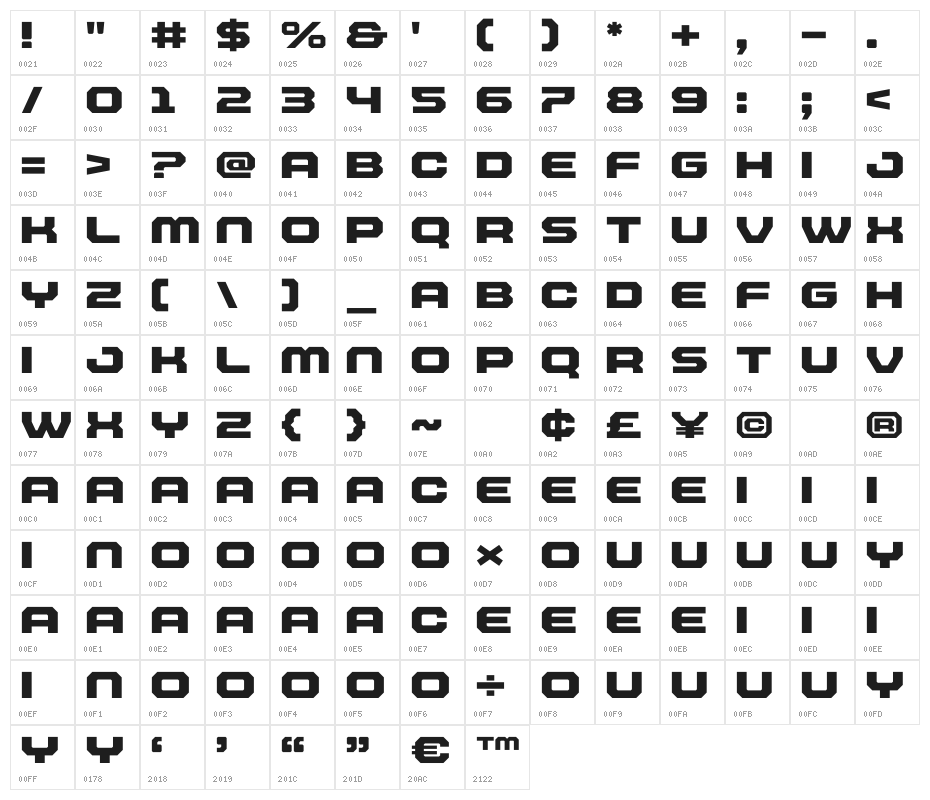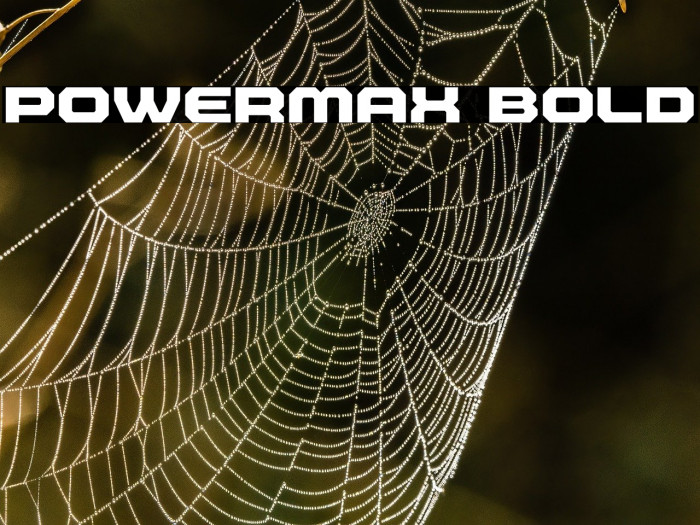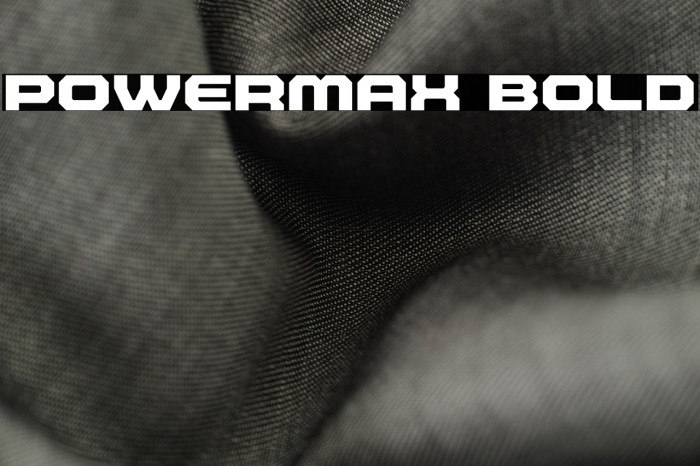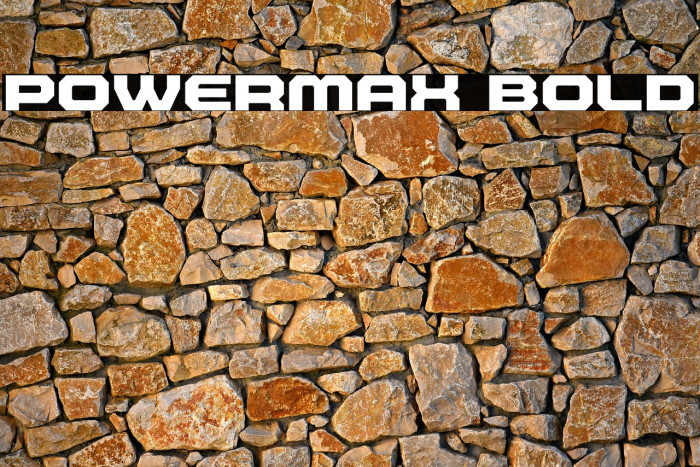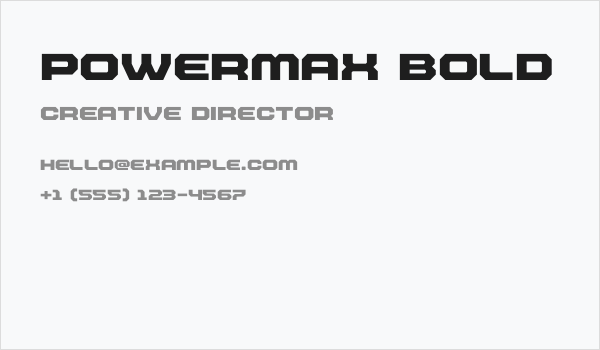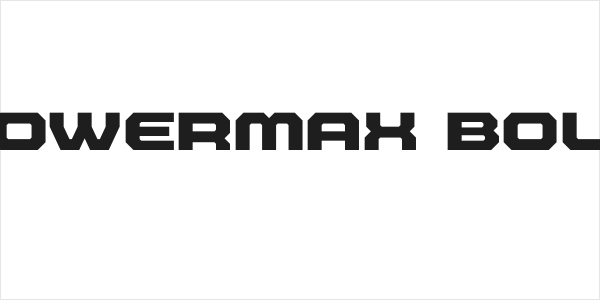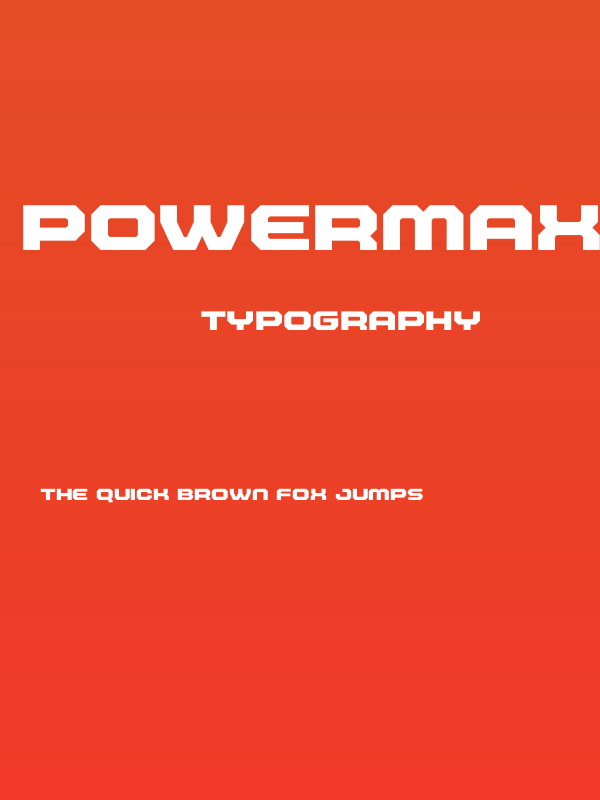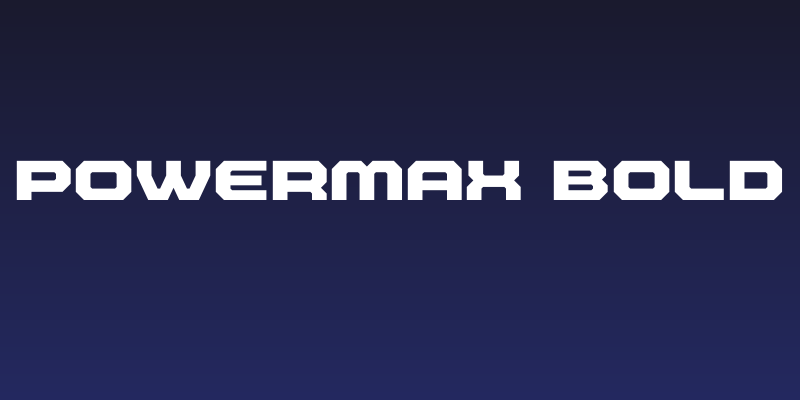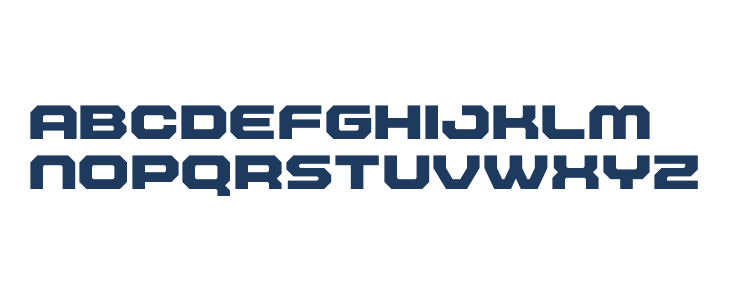
Powermax Bold Font
Powermax Bold Description
This bold, geometric font features a strong, industrial design with angular edges and a solid, impactful presence. The uppercase and lowercase letters maintain a consistent height, creating a uniform appearance. The numbers and special characters follow the same robust style, ensuring a cohesive look across all text elements. The font's bold weight and distinct shapes make it ideal for attention-grabbing designs. Its modern, futuristic aesthetic is well-suited for projects that require a strong visual impact.
| Proposed Projects | Ideal for branding, posters, headlines, and any design requiring a bold, modern look. |